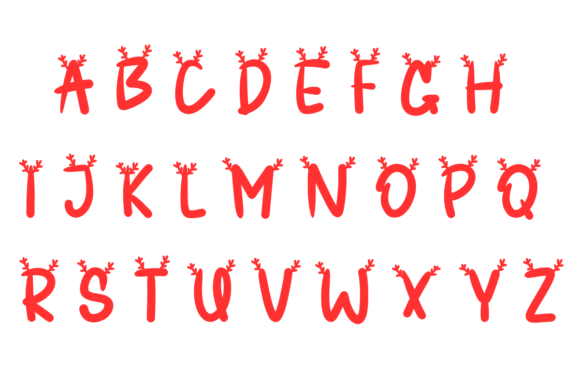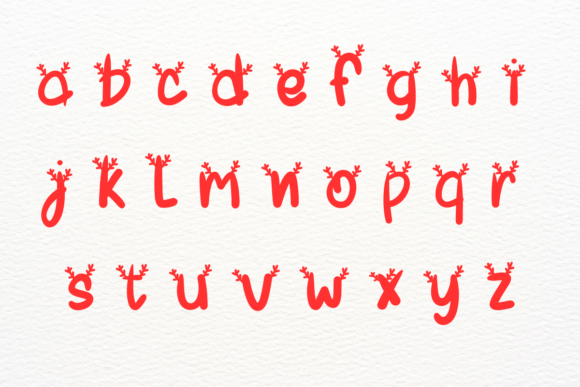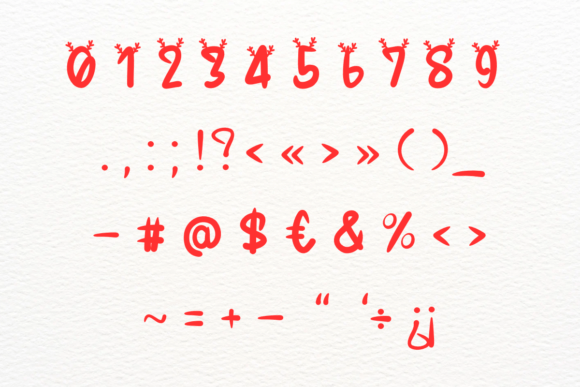
Introduction to Little Reindeer Font
Have you ever found yourself staring at a blank canvas, trying to bring a creative project to life, only to be stuck on the perfect font? It’s a frustrating feeling, but one that can be easily resolved with the right design resource. That’s where the Little Reindeer Font comes in – a simple, yet elegant handwritten font that’s sure to elevate any design.
As a designer, you know the importance of a high-quality font in making your work stand out. The Little Reindeer Font is the perfect addition to any design library, offering a transparent background that allows your creativity to shine through. Whether you’re working on a free download or a paid project, this font is sure to be a valuable asset in your toolkit.
Key Features of Little Reindeer Font
- Unique, whimsical design perfect for a creative project or holiday-themed design resource.
- Perfect for adding a touch of festive charm to various design projects, from greeting cards to logos and more.
Honest Review: Little Reindeer Font
- What works well: ✨ The font is incredibly versatile, making it suitable for various design projects, from children’s books to holiday-themed campaigns. It also features a transparent background, which allows for seamless integration with any design element.
- What works well: ✨ The high quality of the font is evident in its crisp and clean lines, making it perfect for printing or digital use.
However, there are a few limitations to consider. ⚠️ The font is not as extensive as some other fonts on the market, with a limited character set. Additionally, the font may not be suitable for professional or formal projects due to its whimsical nature.
Overall, the Little Reindeer Font is a great design resource for designers looking to add a touch of personality to their projects. While it may have some limitations, its high quality and versatility make it a valuable addition to any design toolkit.
Use the Little Reindeer Font to add a playful touch to your designs. Experiment with different font sizes and colors to create a unique look. For best results, pair the font with a clear and simple design to let the font be the focal point.
The Little Reindeer Font is perfect for holiday-themed projects, children’s books, and any design that requires a touch of whimsy. Use it to create invitations, social media graphics, or even a logo that stands out from the crowd.